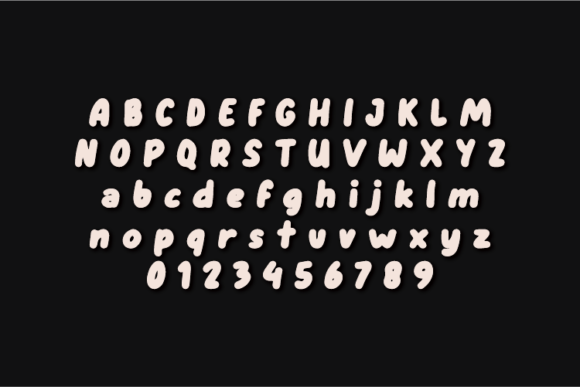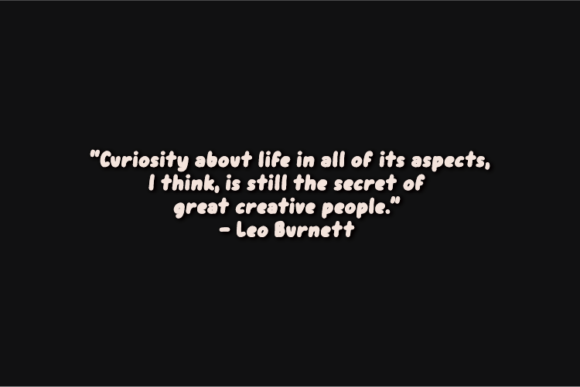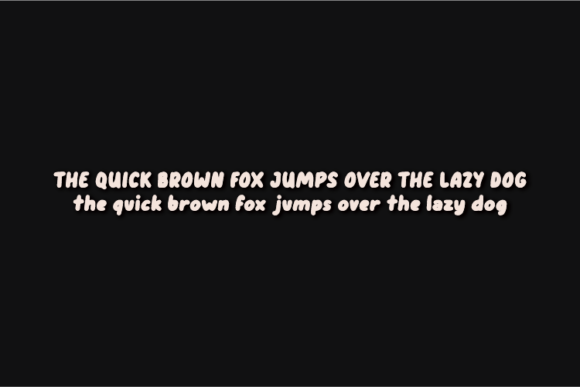
Introducing Confetti Font: A Unique and Playful Display Font
Are you tired of using the same old fonts for your designs? Look no further! Confetti Font is a fresh and exciting display font that’s sure to add a touch of whimsy to your projects. This natural display font is made without changing a single node in each character’s indentation, making it a truly one-of-a-kind find.
What Makes Confetti Font So Special?
Confetti Font’s unique feature lies in its natural, unaltered node indentation. This means that each character has a distinctive, handmade feel that’s perfect for designs that require a personal touch. The font’s natural curves and imperfections give it a playful, confetti-like quality that’s sure to capture attention.
Confetti Font is versatile and can be used for a wide range of design projects, including:
- Quotes: Add a touch of personality to your inspirational quotes and sayings.
- Notes: Make your notes and to-do lists more visually appealing with Confetti Font.
- T-Shirts and Apparel: Create eye-catching designs for t-shirts, hoodies, and other apparel.
- Product Design: Use Confetti Font to add a playful touch to your product labels, packaging, and branding.
Why Designers and Crafters Love Confetti Font
Designers and crafters are always on the lookout for unique and versatile fonts that can help their projects stand out. Confetti Font offers a range of benefits, including:
- Uniqueness: Confetti Font’s natural, handmade feel sets it apart from more traditional fonts.
- Versatility: Use Confetti Font for a wide range of design projects, from quotes and notes to apparel and product design.
- Ease of Use: Confetti Font is easy to read and works well in both digital and print formats.
Tips for Using Confetti Font in Your Designs
Here are a few tips for getting the most out of Confetti Font:
- Keep it Simple: Confetti Font works best when used sparingly. Use it to highlight key words or phrases, and pair it with a simpler font for body text.
- Experiment with Colors: Confetti Font looks great in a variety of colors, from bright and bold to pastel and soft.
- Have Fun: Confetti Font is all about adding a touch of whimsy to your designs. Don’t be afraid to get creative and try new things!